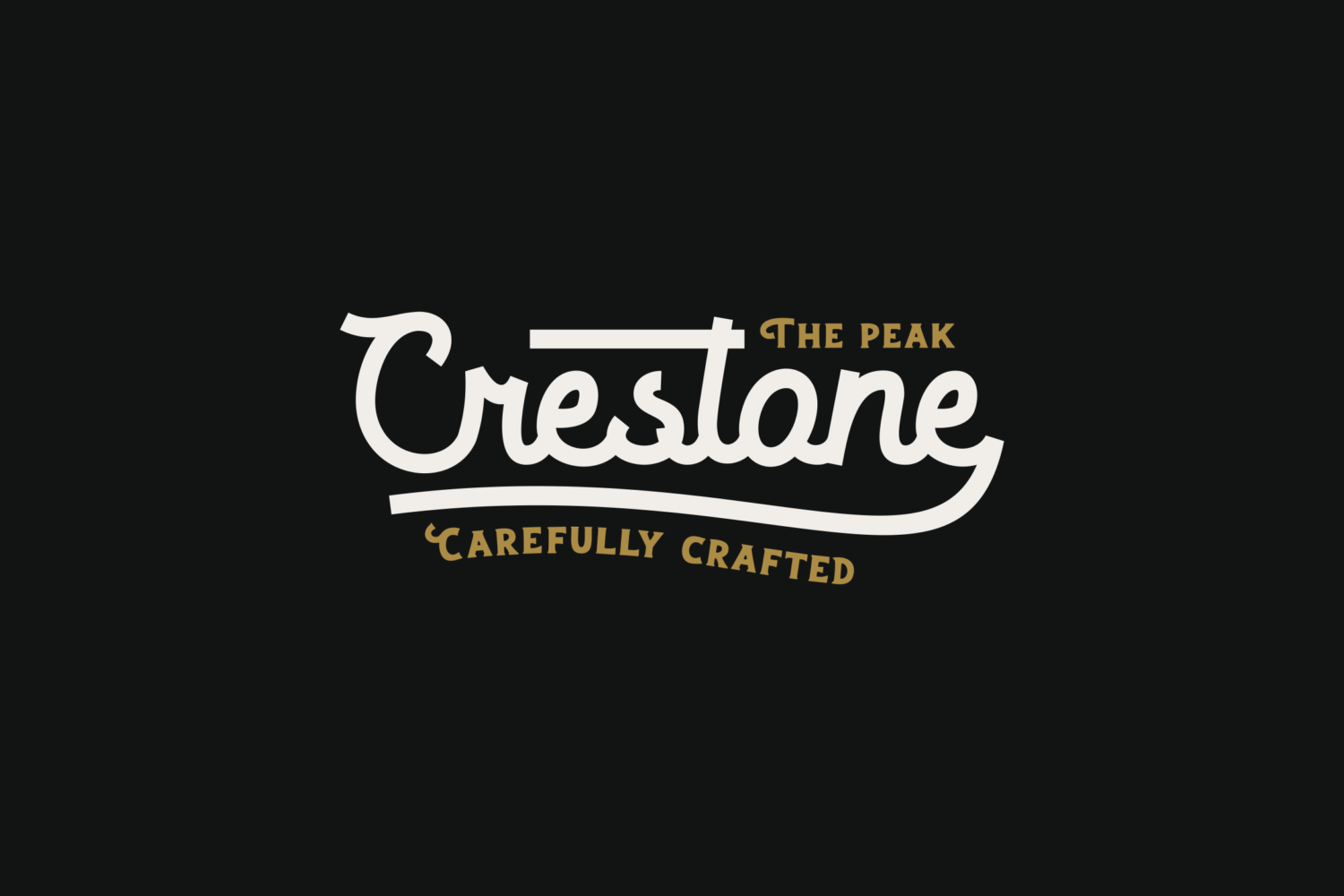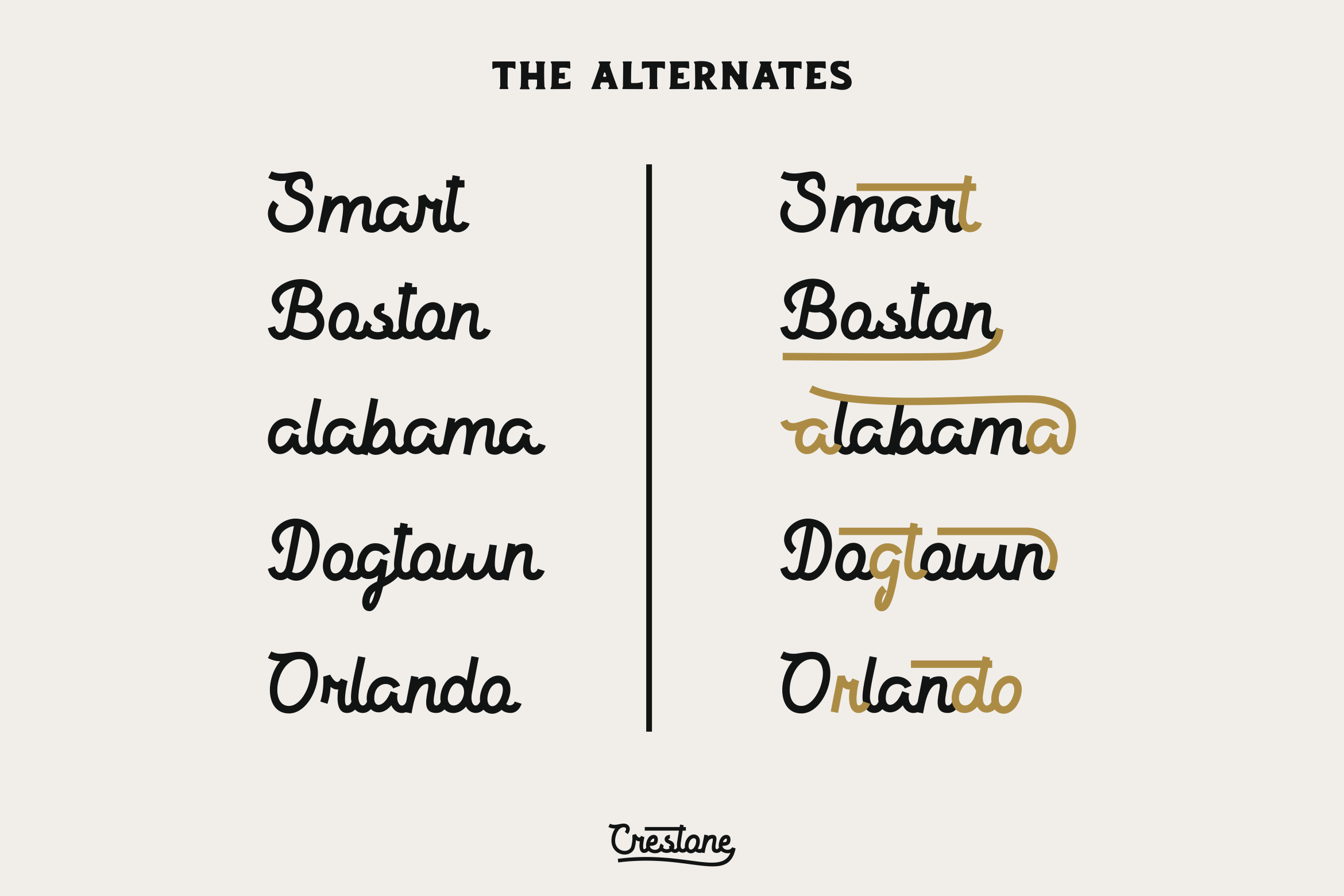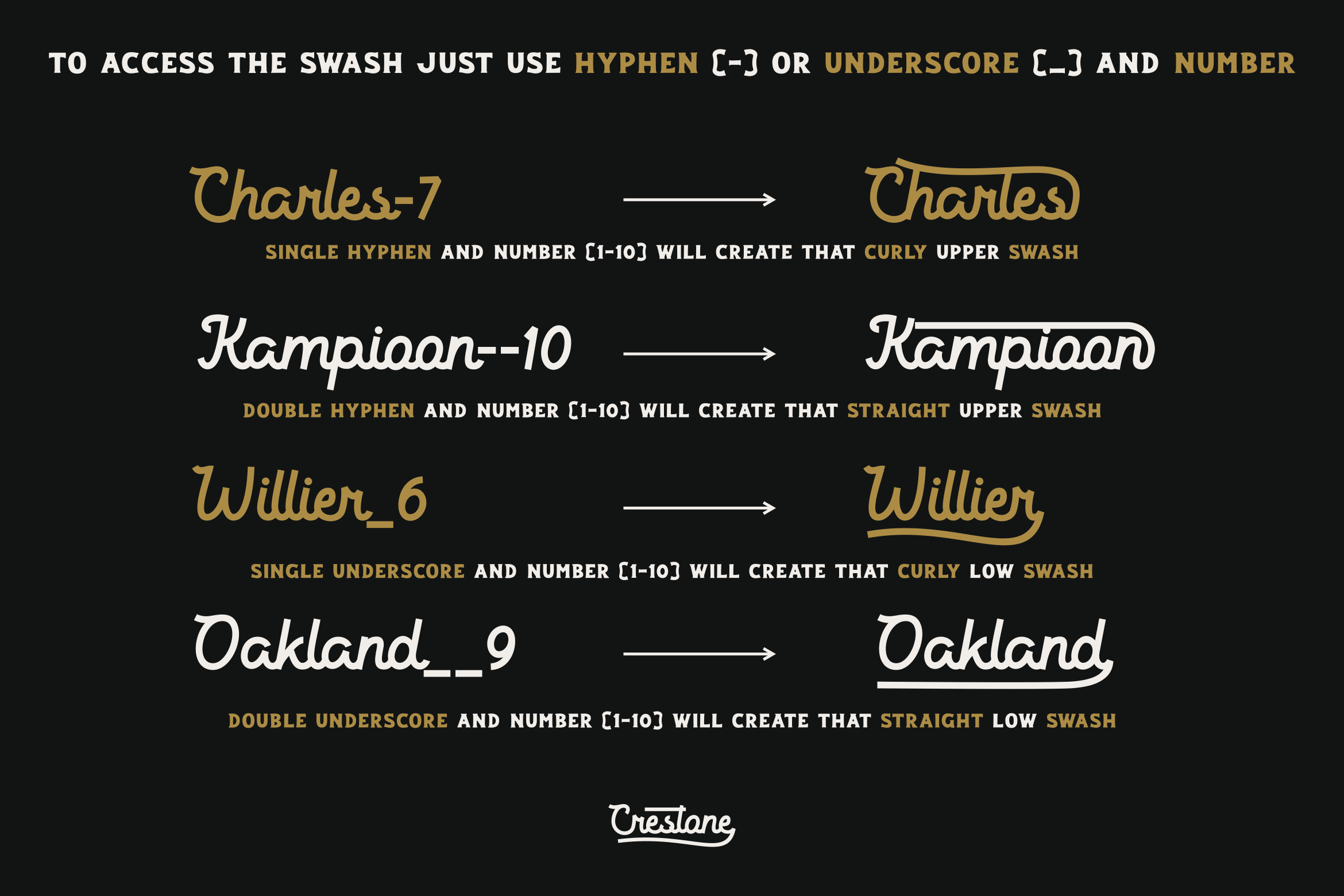
Crestone Free Font
Crestone Free Font is an old fashioned script font with sharp edges that gives you classic touch with that strong feeling. This free typeface was designed by a talented Alexatype Foundry. If you like it don’t forget to check out the full version.